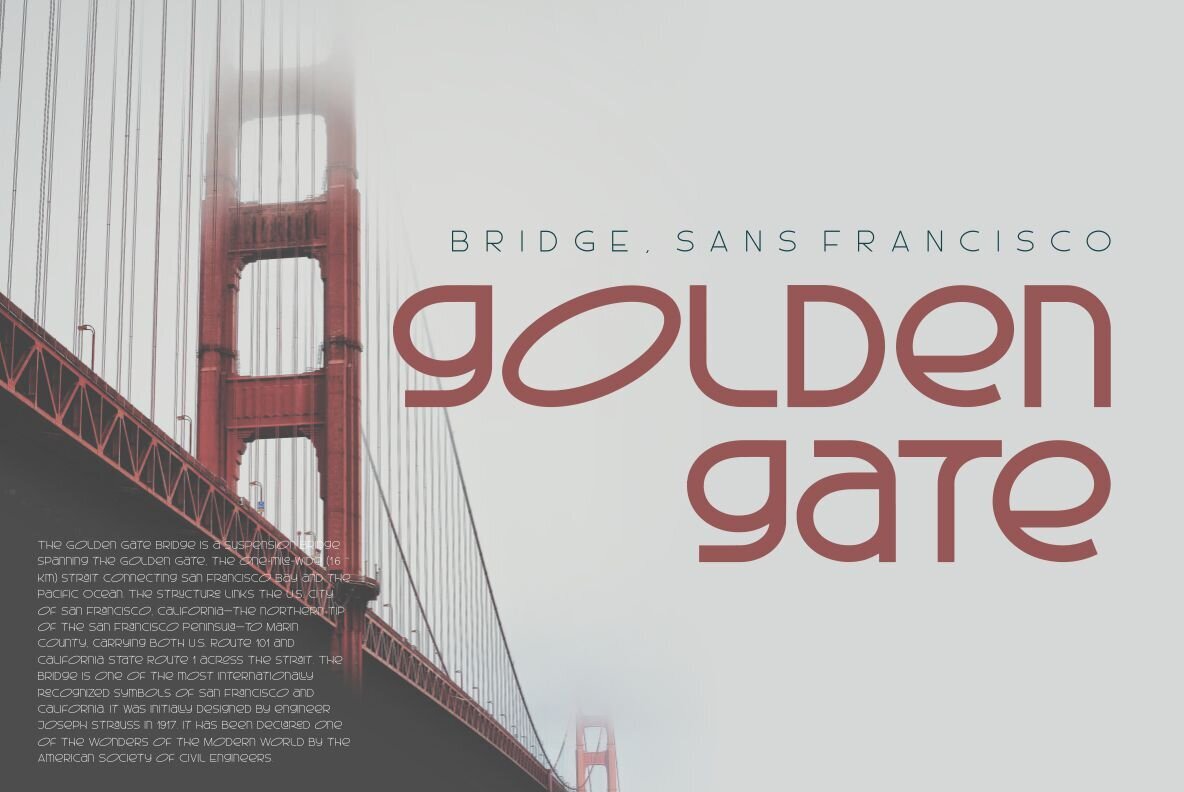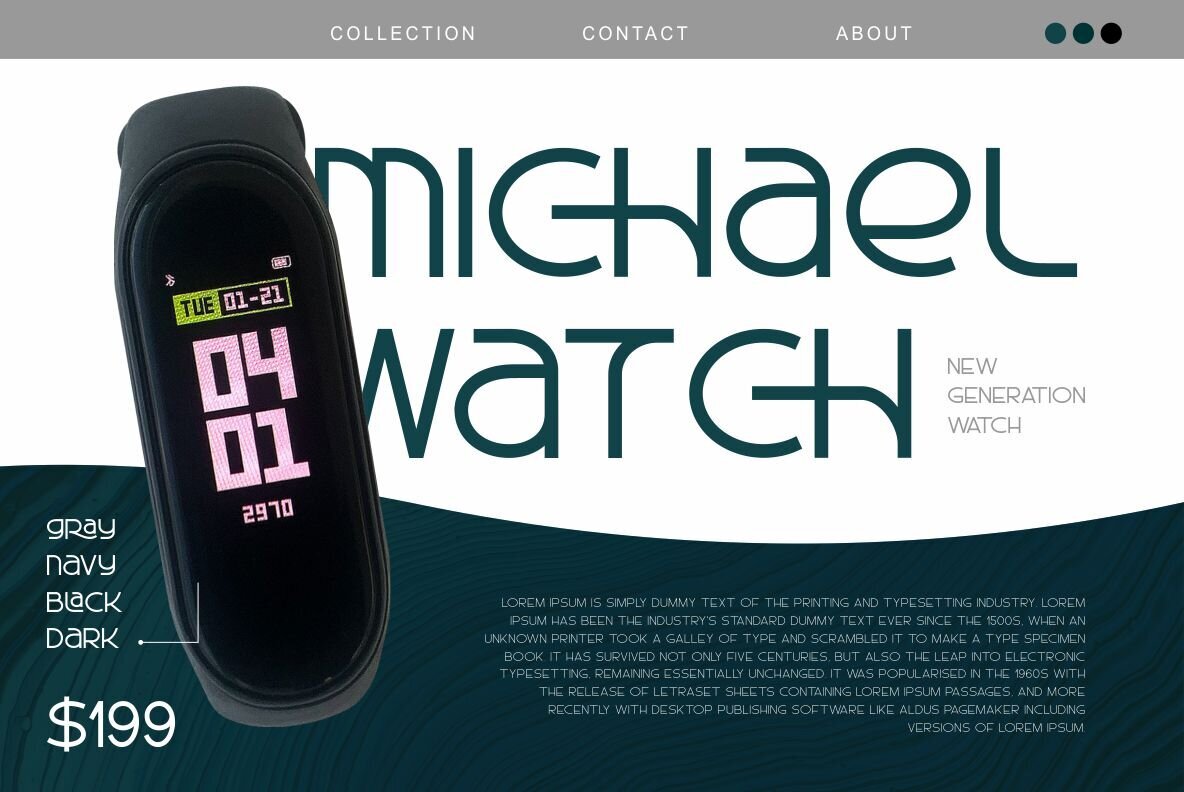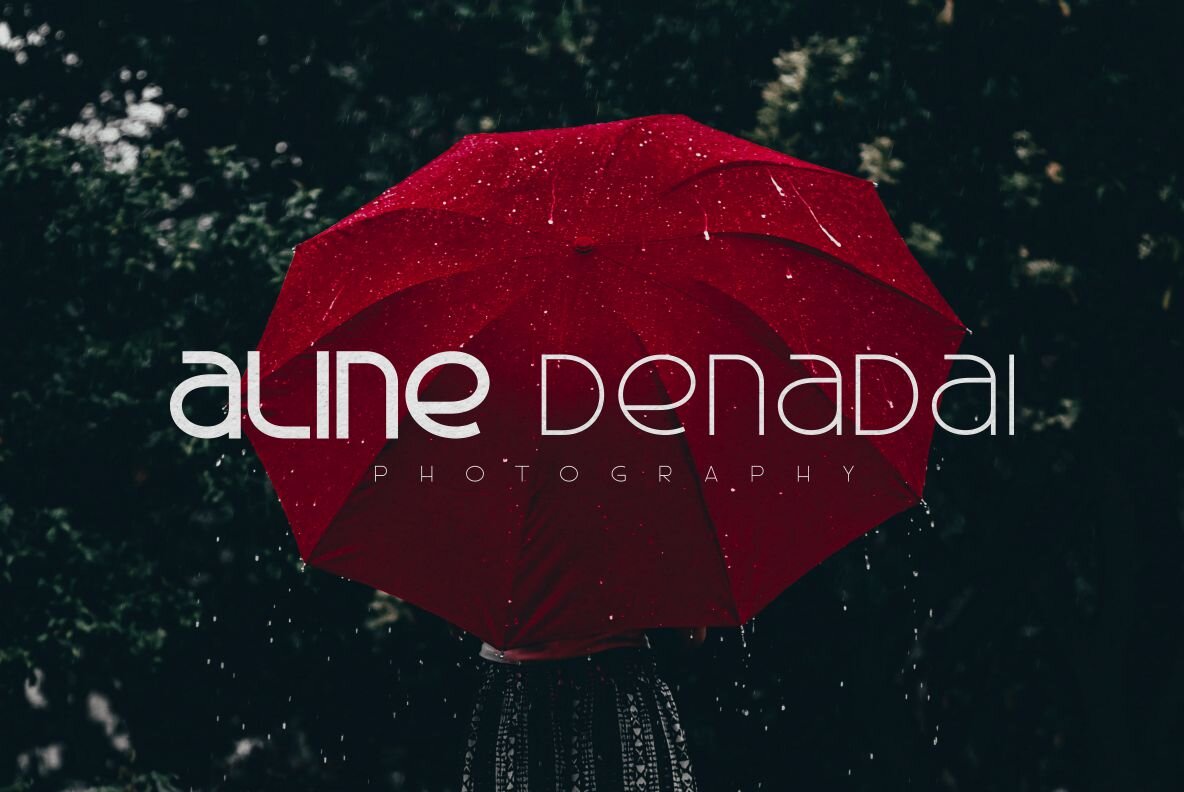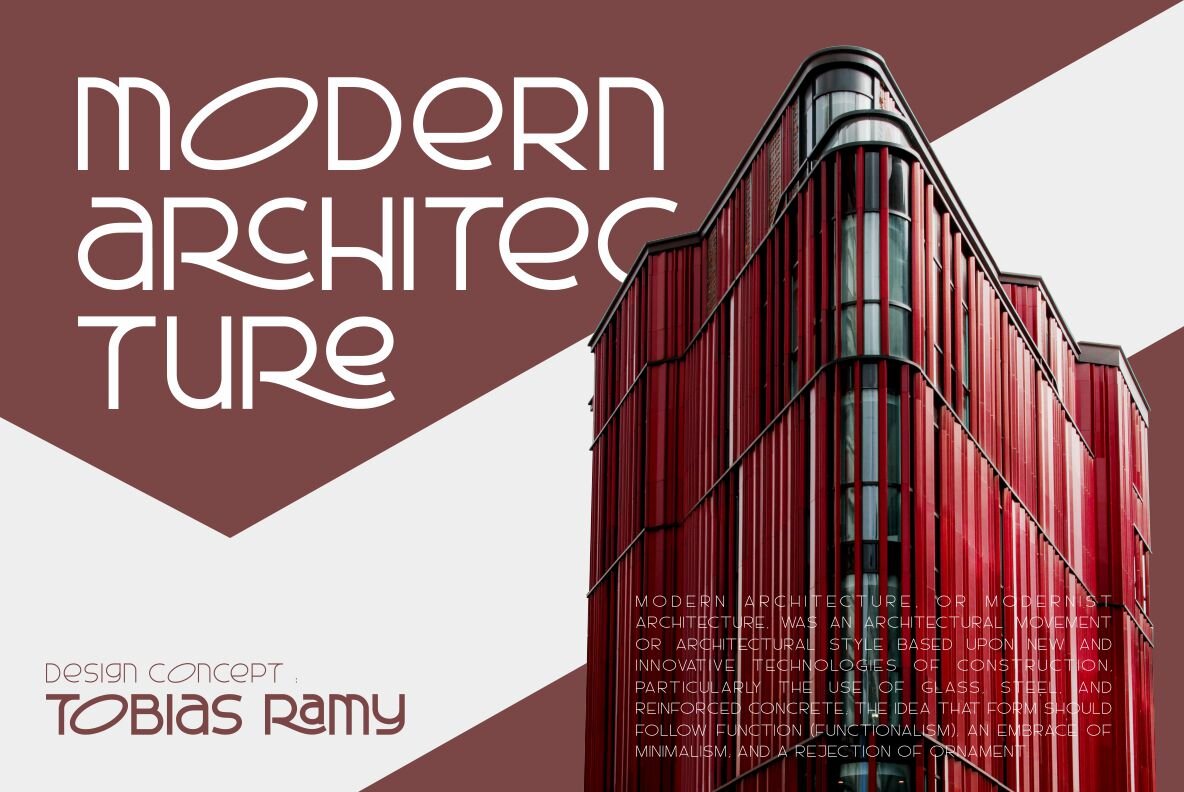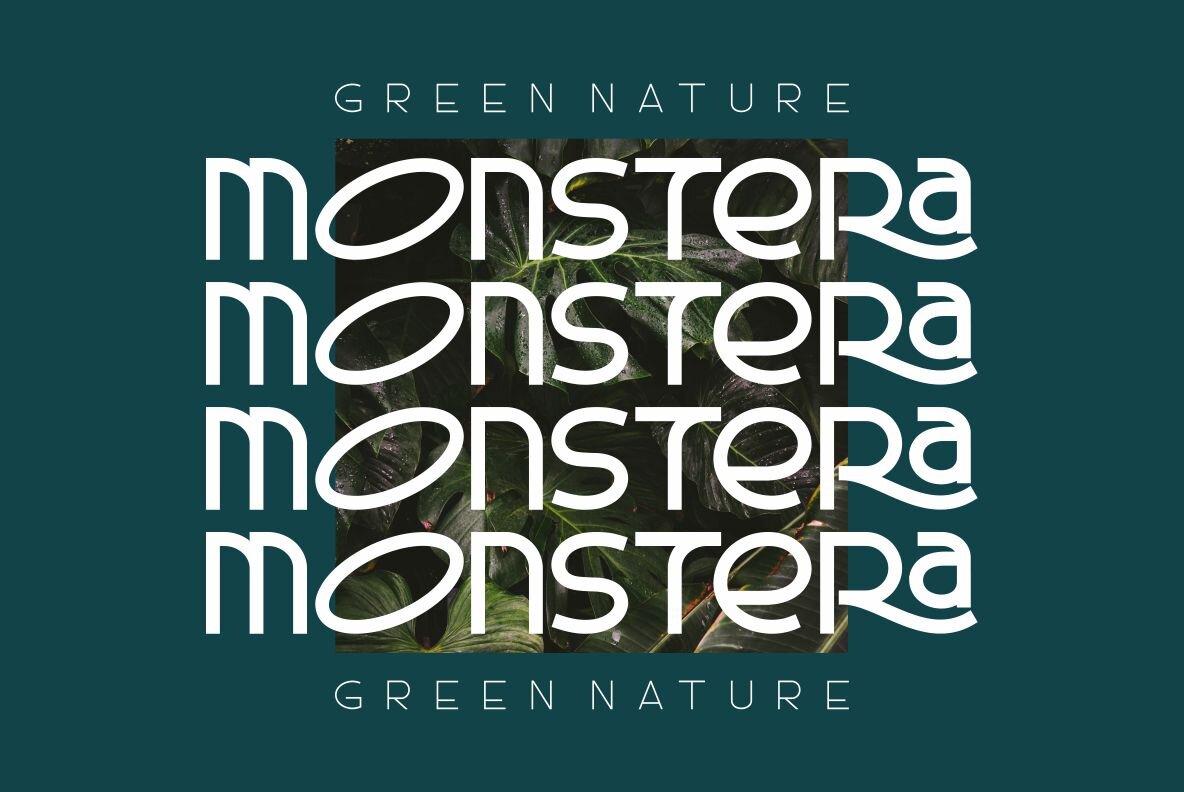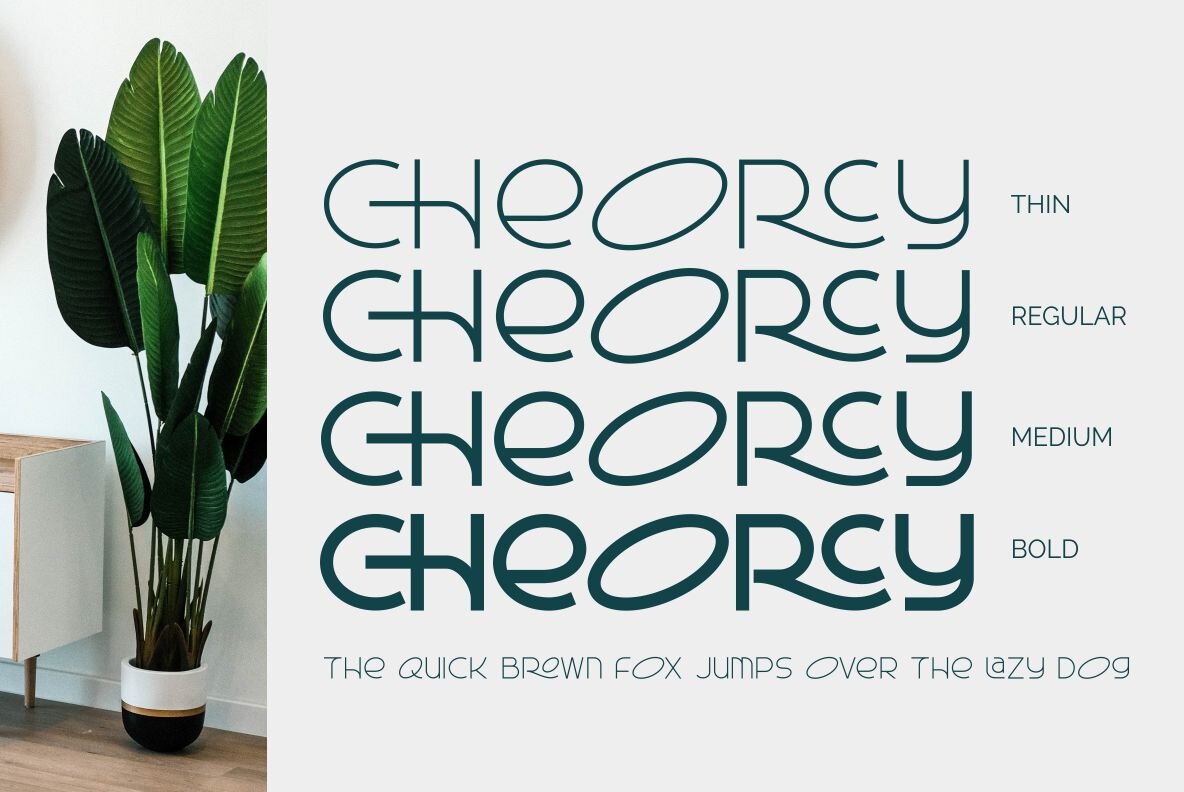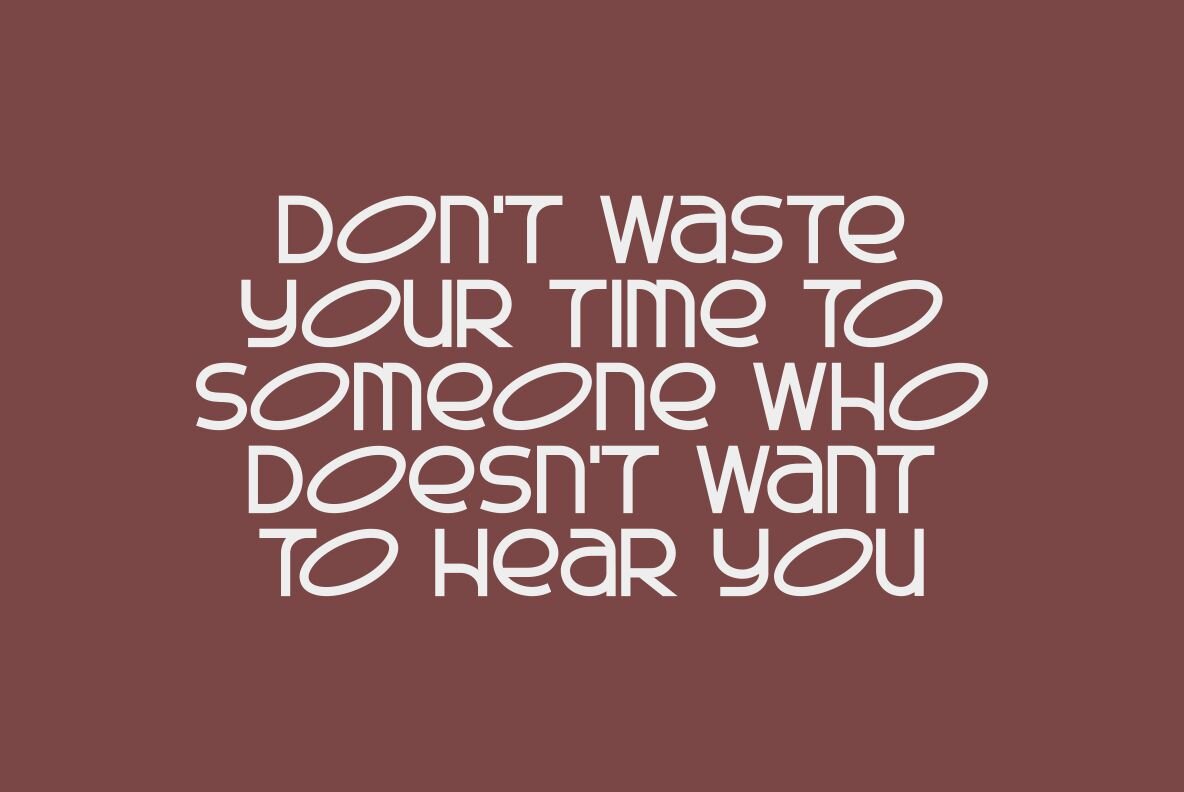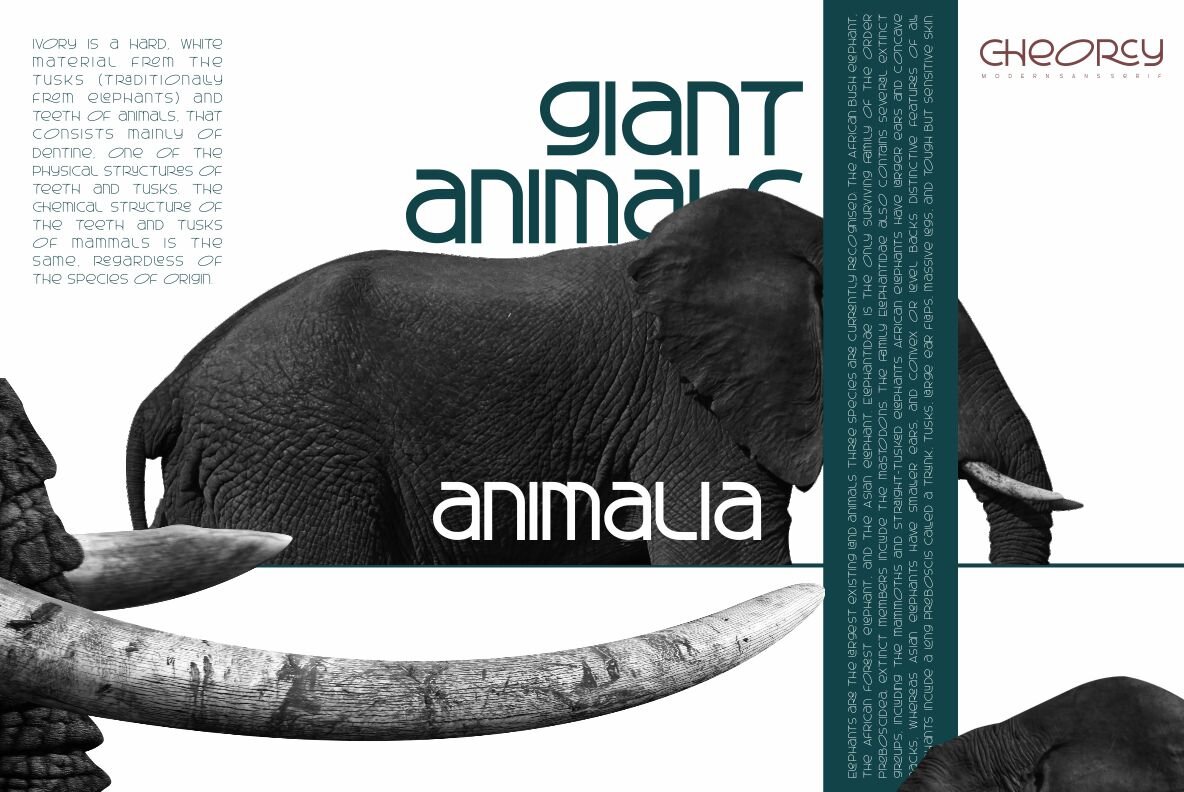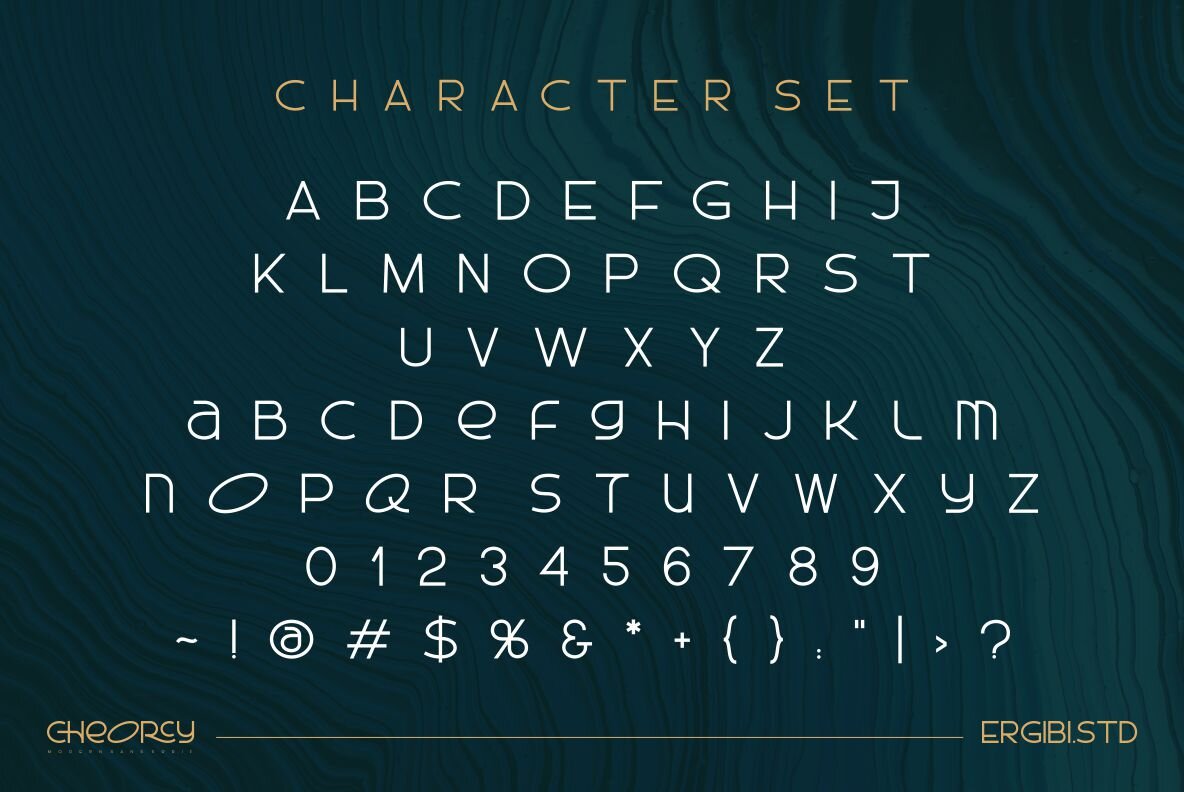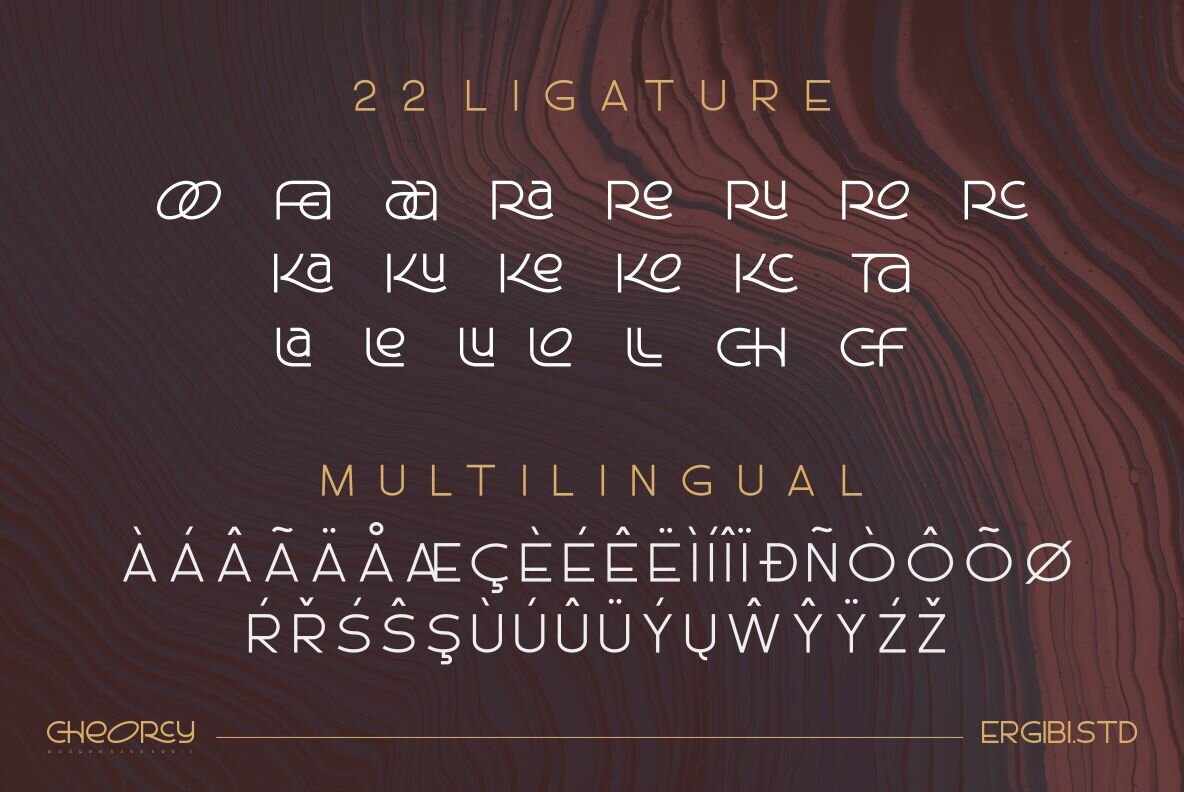
Cheorcy Font
Cheorcy Thin
Cheorcy Regular
Cheorcy Medium
Cheorcy Bold
Derived from iconic logo inspirations, Cheorcy by Ergibi Studio captures both simplicity and sophistication. This elegant typeface serves a wide range of design needs, from logotypes and branding to apparel, packaging, and editorial work. Its clear lines and varying weights make it an adaptable choice that maintains readability across different applications.Cheorcy: A Sophisticated Typeface for Modern Design